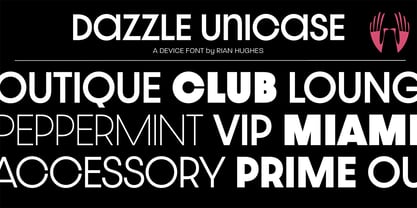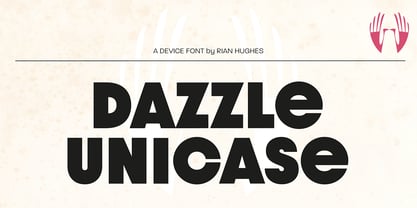
Dazzle Unicase
by Device
An elegant, stylish unicase font with alternative lower-case letter-forms designed to fit the capital’s X-height. The lower-case forms are available in many of the lower-case keystrokes, with even more available as “stylistic alternates” or a “stylistic set”, which can be activated in Adobe apps. Eye-catching, sophisticated and contemporary. Available in five weights. A more sober companion to the original op-art version of
.
Designers: Rian Hughes